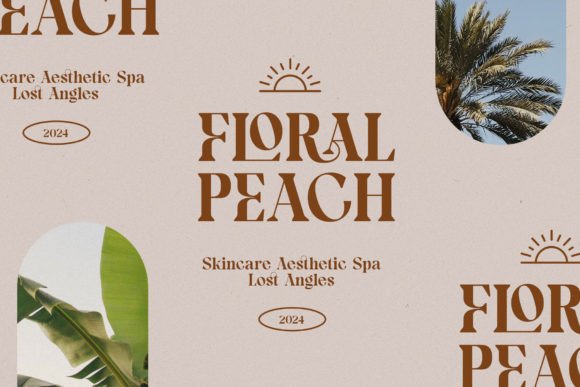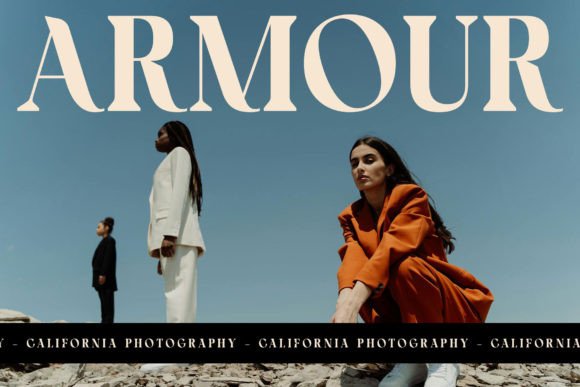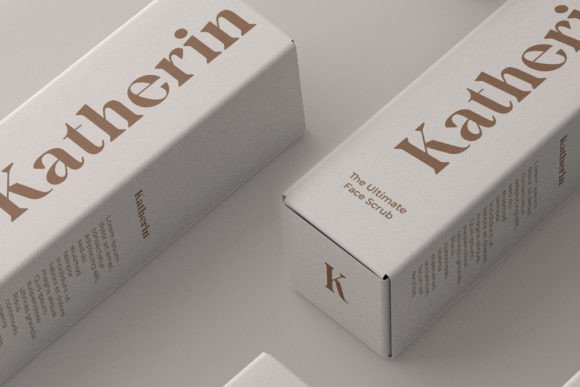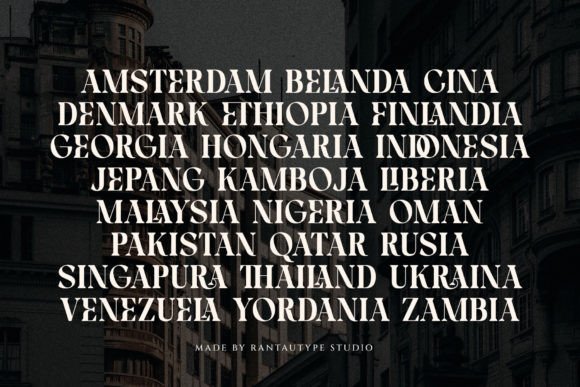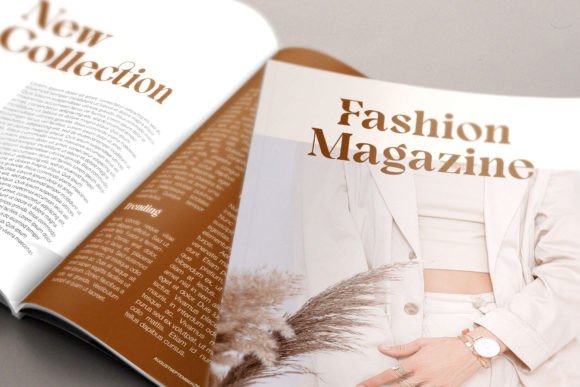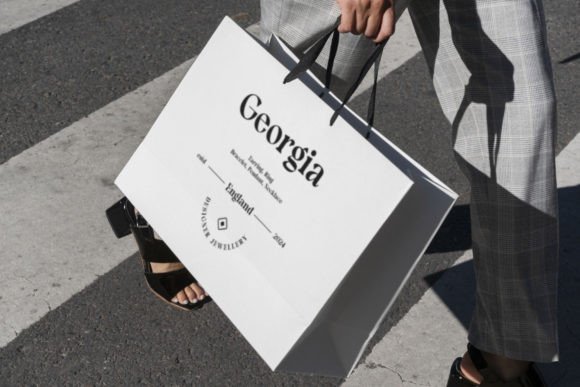
A Touch of Elegance: Unlocking the Charm of Casser Font
As designers, we’ve all been there – staring at a blank canvas, waiting for inspiration to strike. It’s in these moments that we discover the perfect font to bring our vision to life. For me, that moment came when I stumbled upon the Casser Font. Its delicate curves and refined details immediately caught my eye, and I knew I had to learn more.
Casser Font is a modern, feminine display serif font that embodies elegance and sophistication. Its versatility makes it a valuable addition to any designer’s toolkit, perfect for branding, editorial designs, and more. Whether you’re working on a high-end fashion campaign or a wedding invitation, Casser Font adds a touch of charm and sophistication that’s hard to resist.
Casser Font Key Features
- Size: The font is available in a single weight, with a total of 1000 glyphs, including a wide range of characters, punctuation, and symbols.
- Unique Characteristics: Casser Font features a unique blend of modern and vintage elements, with intricate details and textures that give it a distinctive look.
- Language Support: The font includes support for multiple languages, including Latin, Cyrillic, and Greek scripts, making it a versatile choice for international applications.
Casser Font Review
I recently had the chance to work with Casser Font, and I must say it’s an interesting addition to the world of typography. ✨ One of the things that caught my attention was its unique blend of modern and vintage elements. The font is versatile and can be used for a wide range of applications, from headings to body text.
Here are some of the things that I think work well with Casser Font:
- ✨ Its modern feel makes it perfect for contemporary designs.
- ✨ The font’s subtle imperfections give it a unique, human touch.
- ✨ Casser Font is highly legible, making it easy to read in both digital and print formats.
However, I also encountered some limitations:
- ⚠️ The font may not be suitable for very small text sizes, as the letters can become slightly distorted.
- ⚠️ Some users may find the font’s vintage elements too bold or distracting.
Overall, I think Casser Font is a great option for designers who want to add some personality to their work. While it may not be perfect, its unique blend of modern and vintage elements makes it a great choice for the right project.
Casser Font is ideal for:
- Creating headings and titles
- Adding emphasis to body text
- Designing visual content for social media
- Creating presentations and reports